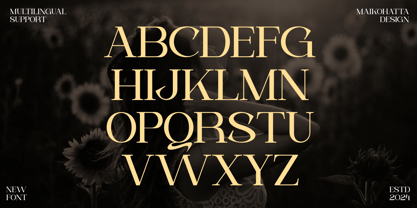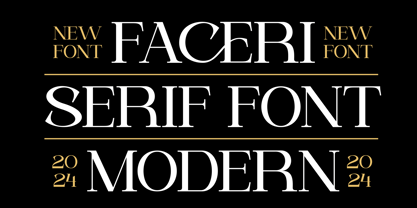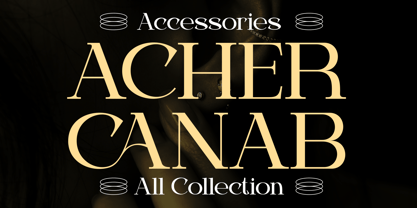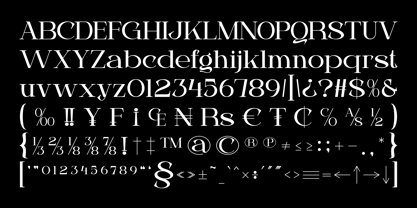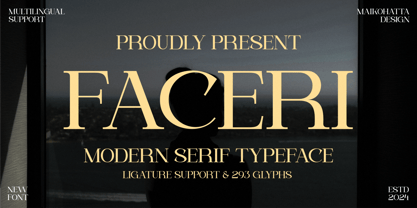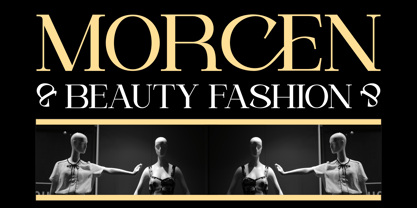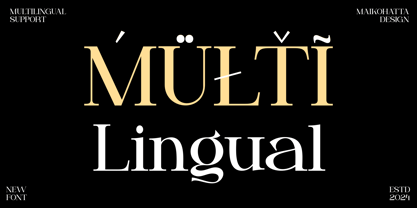
Faceri
by Maikohatta
The Faceri Font Family was designed by Gilang Ternadho and published by Maikohatta. Faceri contains 1 styles.
Introducing our new product Faceri - Modern Serif Typeface
This font features a balanced proportion of stroke thickness and fineness, creating attractive and easy-to-read visuals. This modern serif style is often characterized by a bold distinction between thick and thin lines, providing a touch that is understated but still stands out.
Designers: Gilang Ternadho
Publisher: Maikohatta
Foundry: Maikohatta
Design Owner: Maikohatta